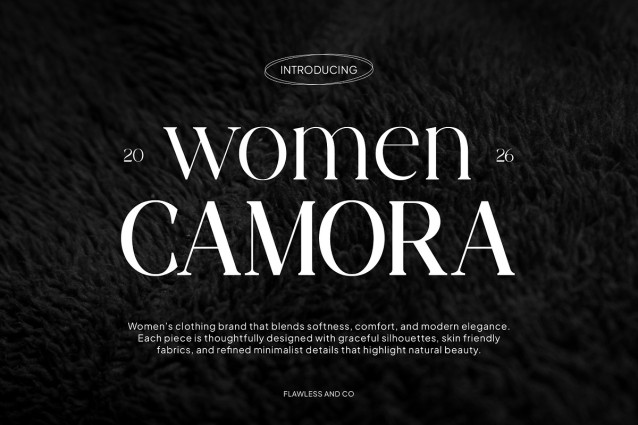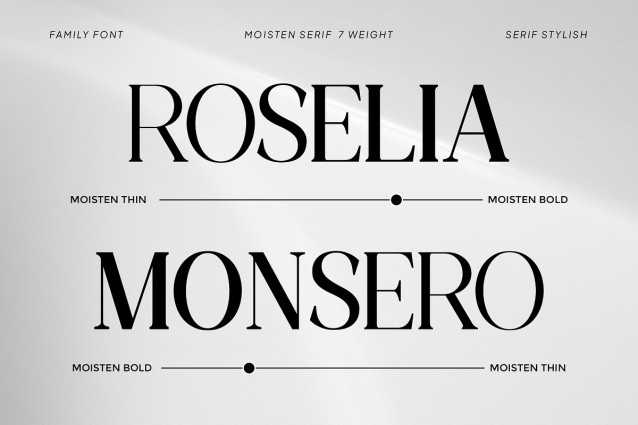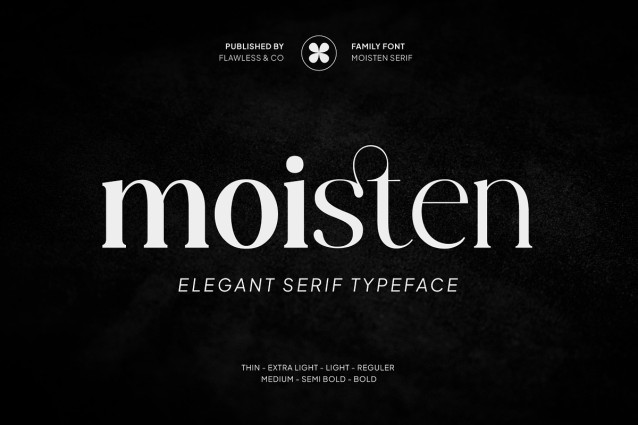
Moisten Font
Moisten Font is a sophisticated elegant serif family font that combines modern refinement with timeless beauty. Designed with graceful letterforms, balanced proportions, and subtle contrast, Moisten brings a luxurious and polished aesthetic to any design. Its elegant structure allows it to shine in both bold headlines and refined text compositions, making it a versatile choice for creative professionals. With its carefully crafted details and harmonious style, Moisten adds a sense of prestige and elegance to visual identities.